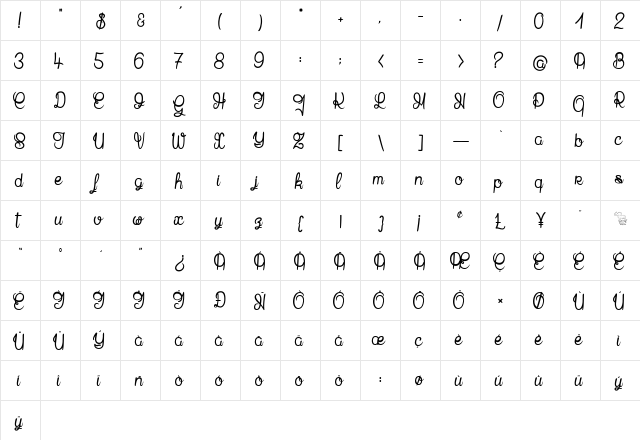
Mandala Home Regular
| Foundry | dcoxy Medina Gregory |
| Designer | dcoxy Medina Gregory |
Design Context for Mandala Home Typeface
Mandala Home takes a measured approach to typography — its balanced proportions and neutral character make it a reliable workhorse for both digital and print work.